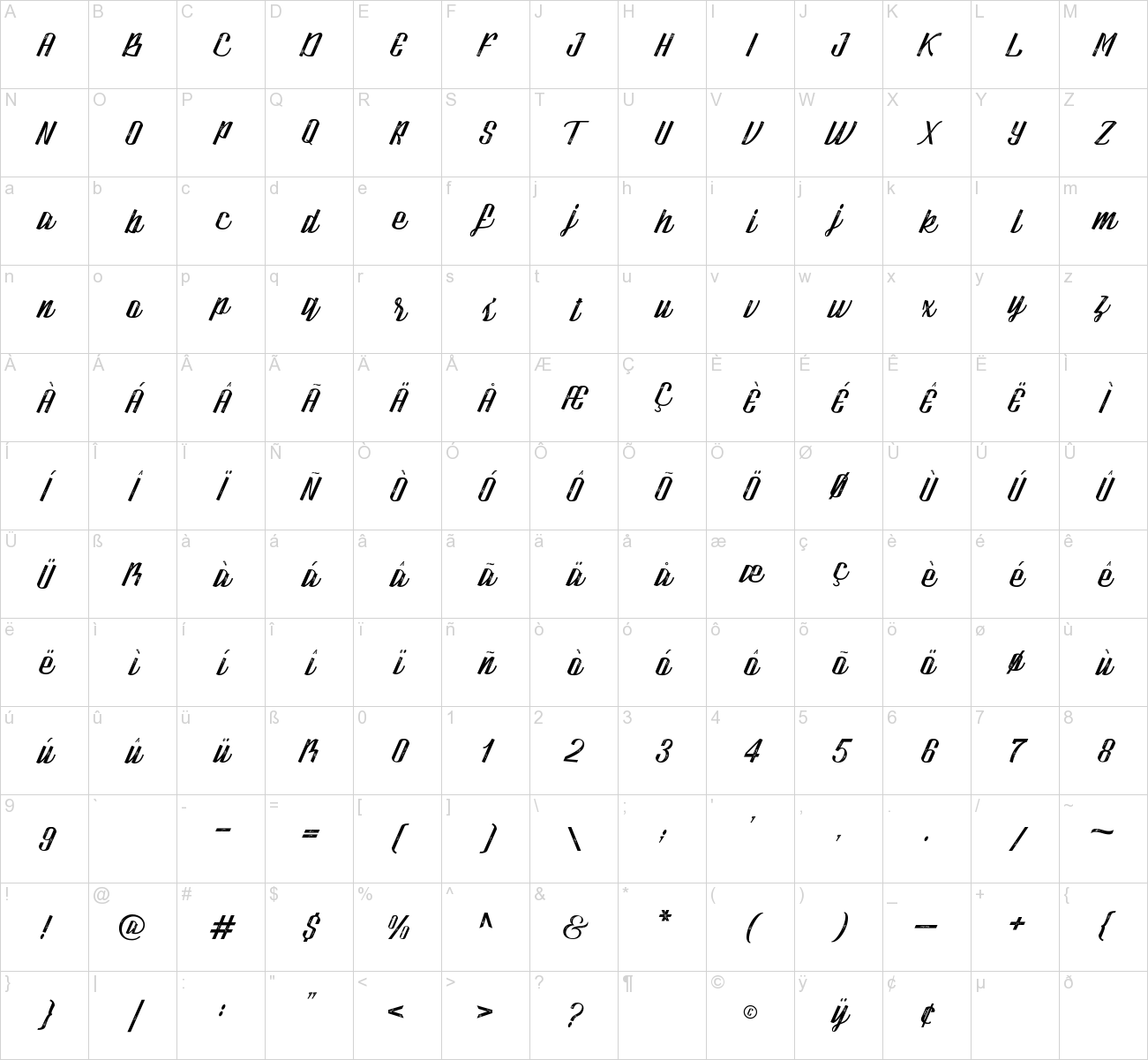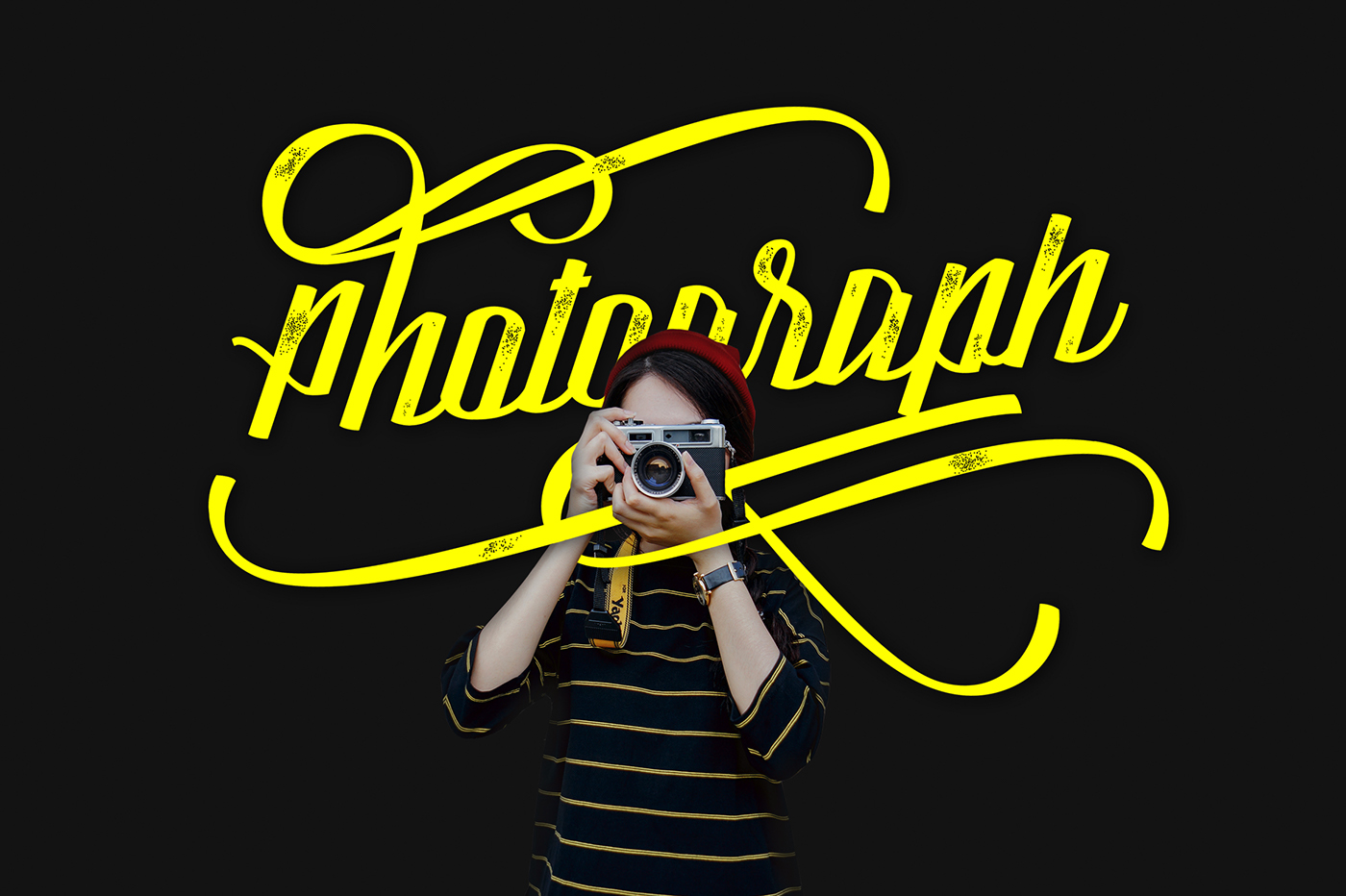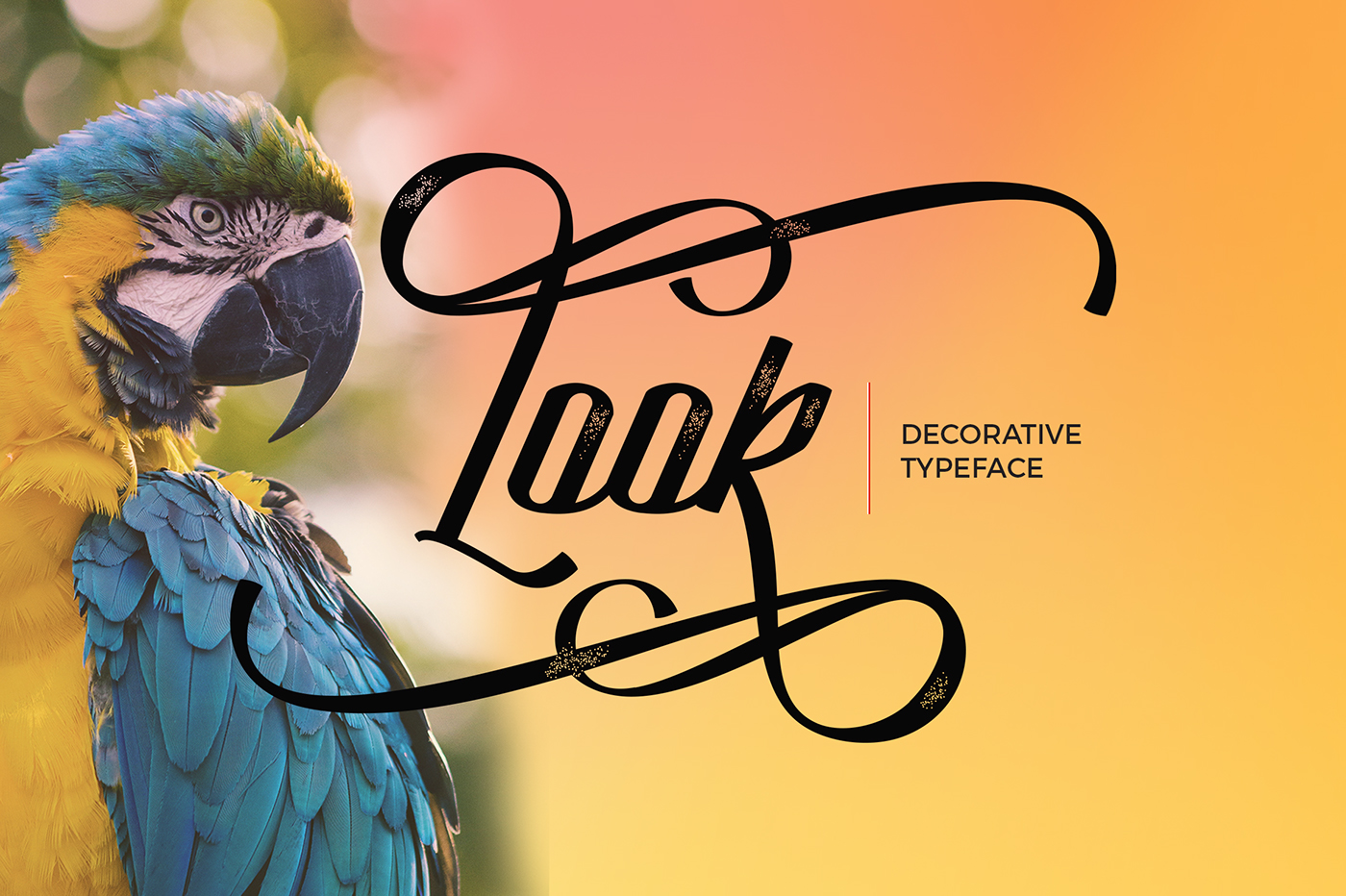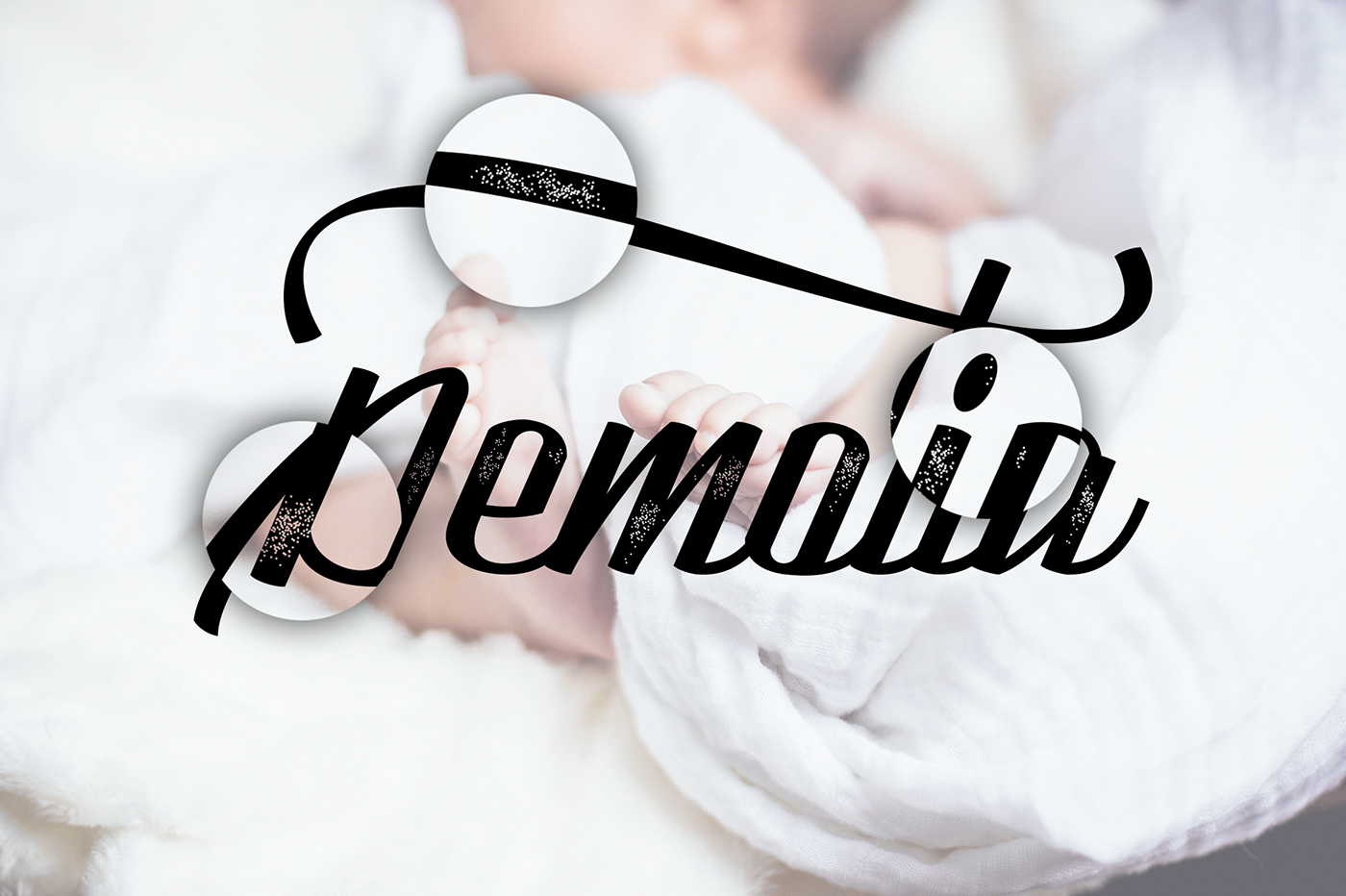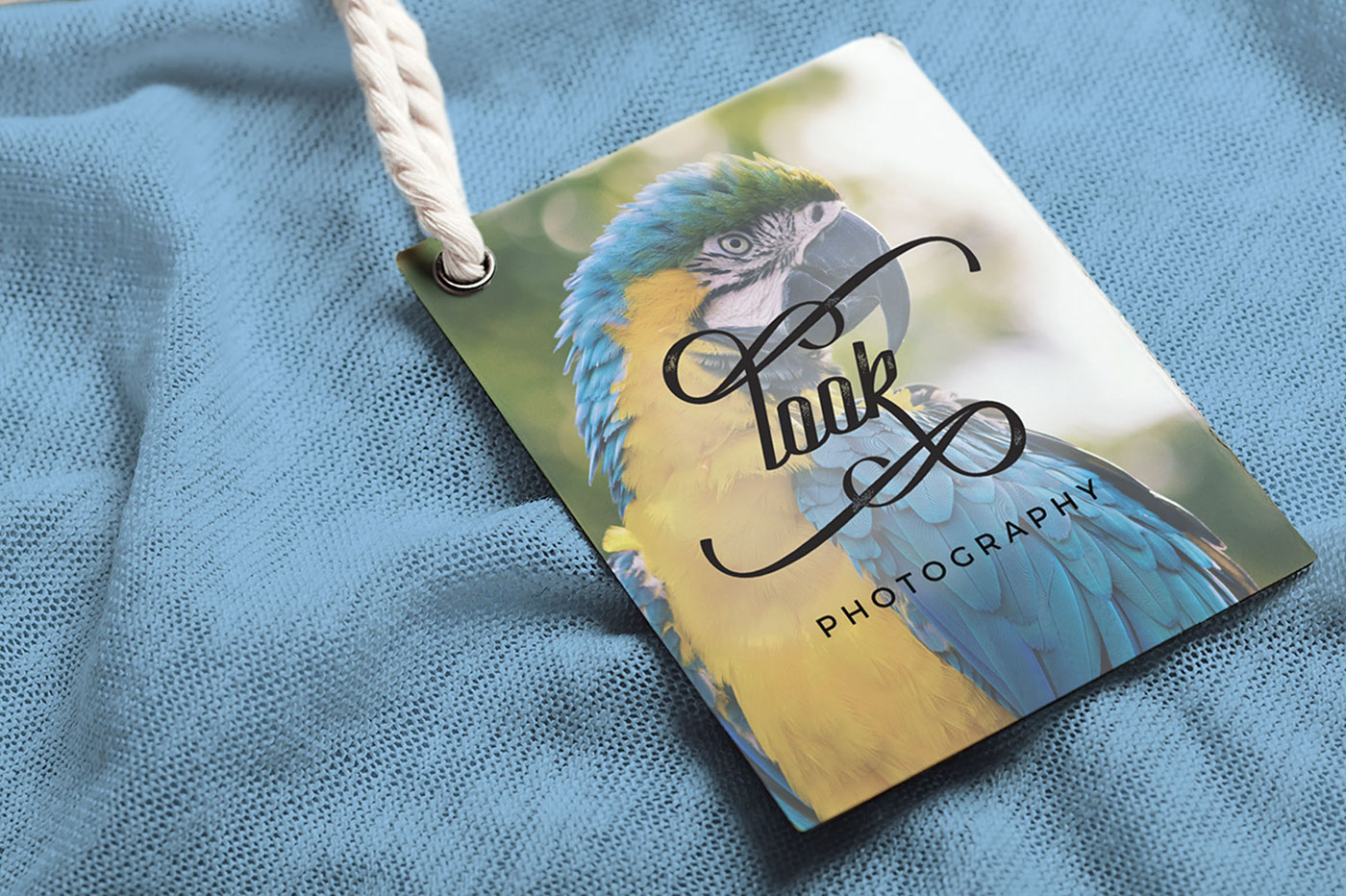
Latika Typeface
Introducing Latika, Font Display to make your text look beautiful. Latika Typeface have 3 Style : Clean, Rough (Vintage) & Italic. Suitable and applicable to create vintage design, branding, logos, product packaging, invitation, qoutes, t-shirt, label poster etc.
Classification: | Brush Fonts, Calligraphy Fonts, Handwritten Fonts, Script Fonts |